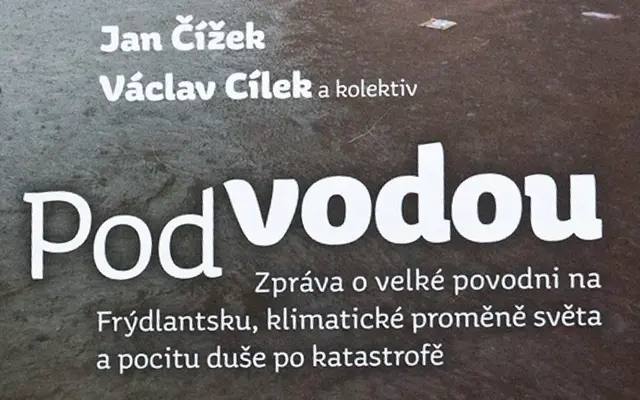
Aniuk
Typejockeys · Thomas Gabriel
A five-weight sans-serif by Thomas Gabriel that balances energetic curves with angular structure, aimed at editorial, poster and logo work.
Designed by Thomas Gabriel, Aniuk runs across five weights from Regular to Black, each sharing a tension between fluid curves and harder edges that gives the family a distinctive, characterful feel. OpenType features include alternative glyphs for the y and ampersand, tabular figures and lining figures. The range of weights and the expressive detailing make it well suited to display settings, branding and editorial headlines.
Aniuk displays a balance of curved and angular forms with a playful yet structured character, consistent with humanist sans design principles rather than strict geometric or grotesque traditions.